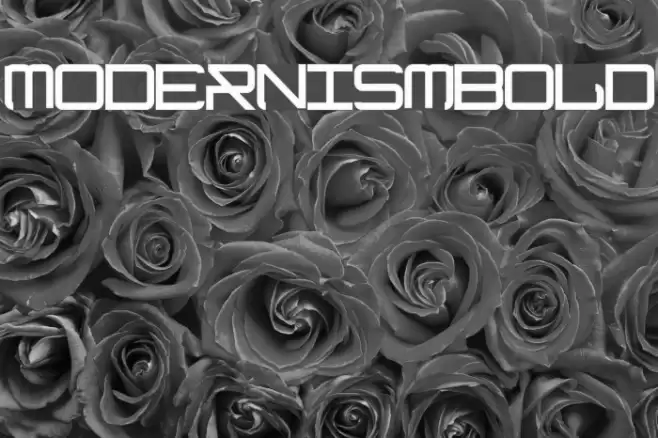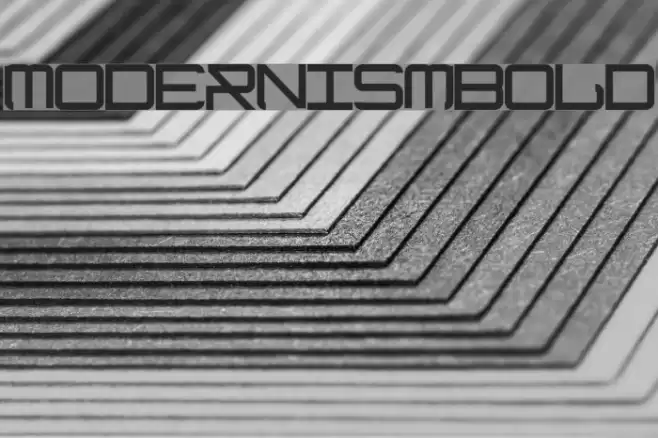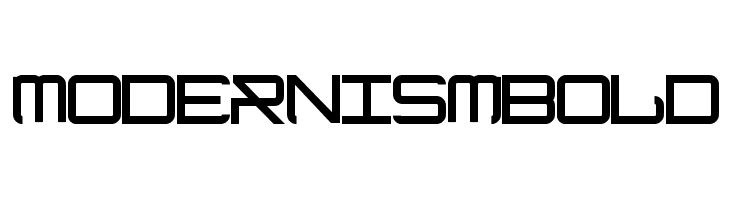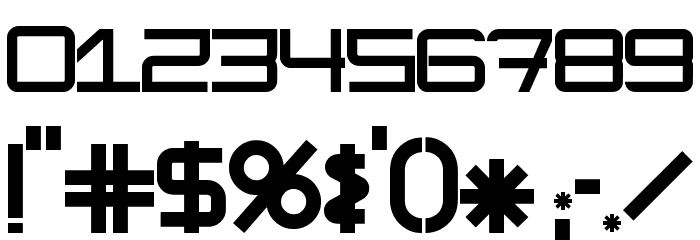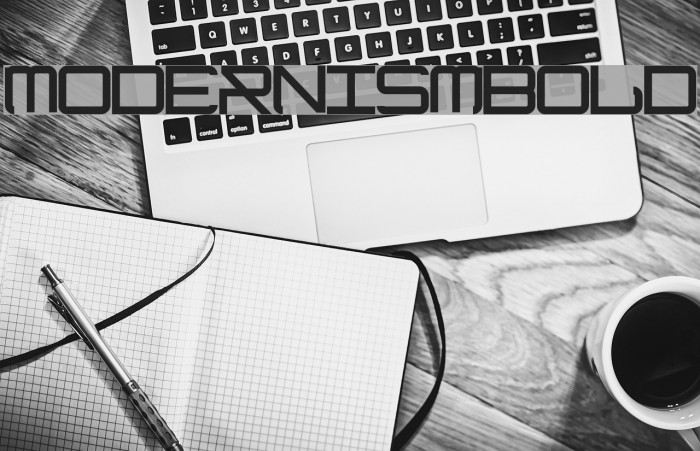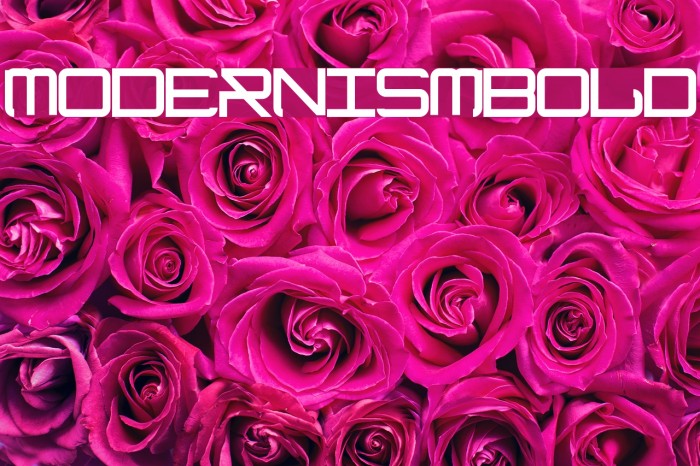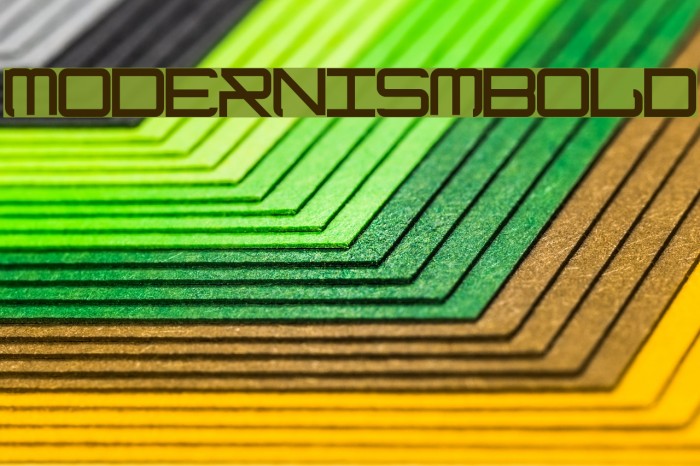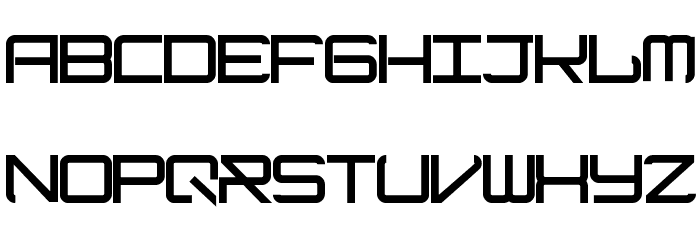
ModernismBold Font
ModernismBold Description
This font features a bold and geometric design, characterized by its modern and futuristic appearance. The letters are constructed with a consistent stroke width, giving it a uniform and structured look. The angular and sharp edges of the characters convey a sense of precision and technological advancement. The uppercase and lowercase letters maintain a cohesive style, while the numerals and special characters complement the overall aesthetic. Its clean lines and distinct shapes make it suitable for projects that require a contemporary and cutting-edge feel.
A bold, geometric font with a modern and futuristic style from Uncategorized fonts.
- Proposed Projects: Ideal for technology branding, modern advertising, futuristic posters, and digital interfaces.